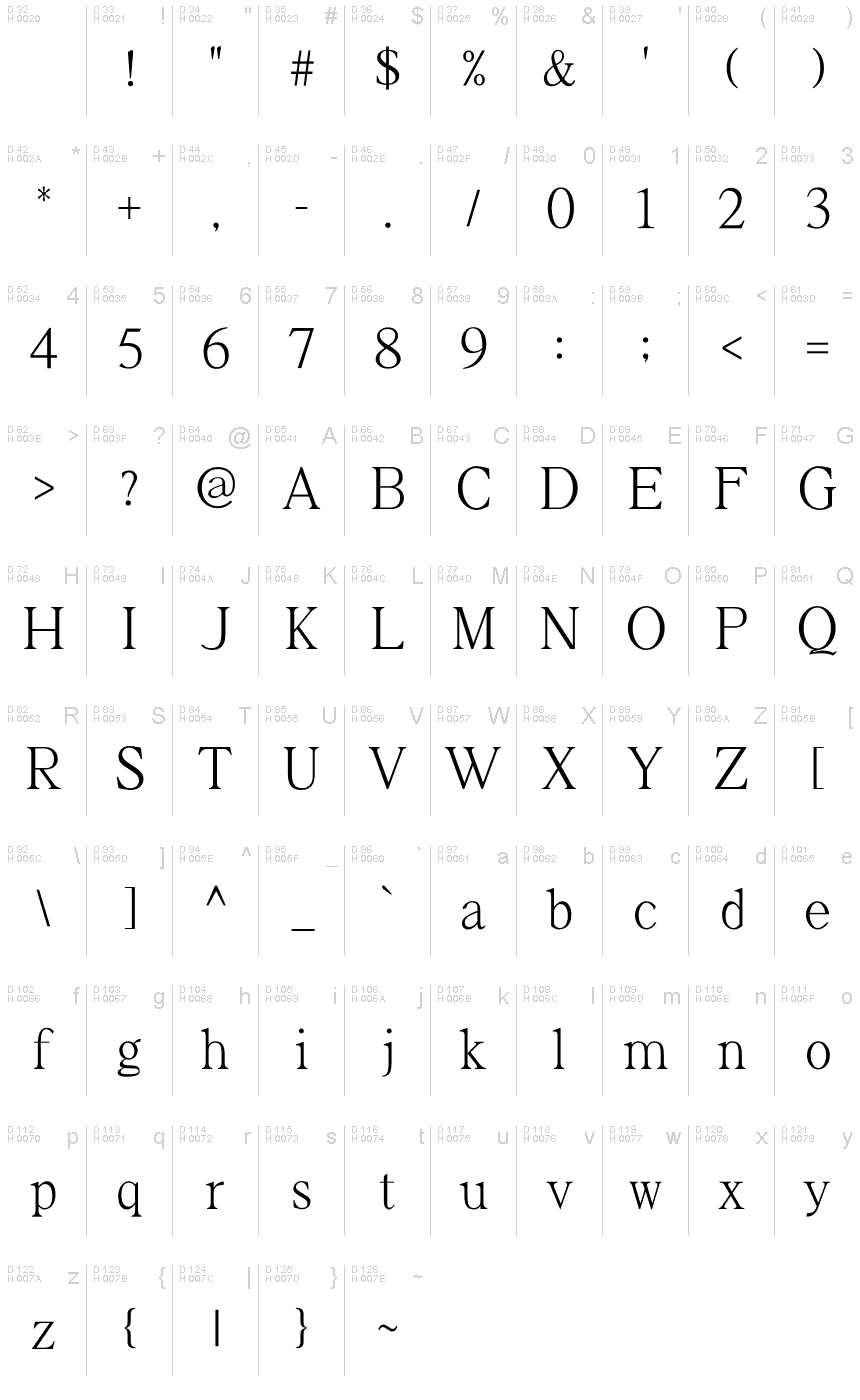
Vacation
Vacation, crafted by Dwi Sulistyono, is a serif font with a semi-light weight that exudes a breezy and elegant aesthetic. Its slender serifs and gentle curves evoke the relaxation and ease of a leisurely retreat. The delicate balance of its strokes gives it a modern yet timeless character, making the font versatile for various design applications.
The Vacation font's unique appeal lies in its subtle sophistication, which can add an air of casual luxury to branding projects, editorial designs, or sophisticated invitations. With its understated style, it promises to deliver clarity in print and digital mediums alike.
Embrace the artistic potential of Vacation for your next creative endeavor where style meets simplicity in an effortlessly chic typography experience.